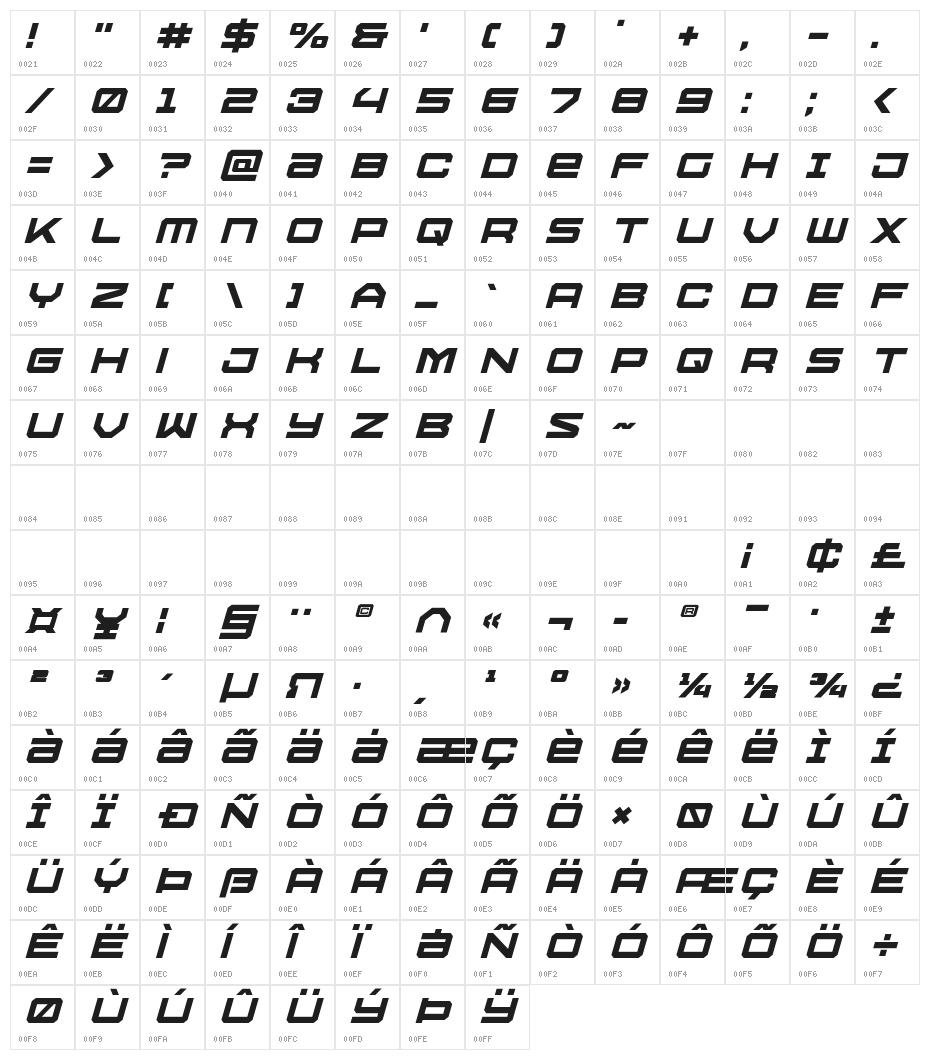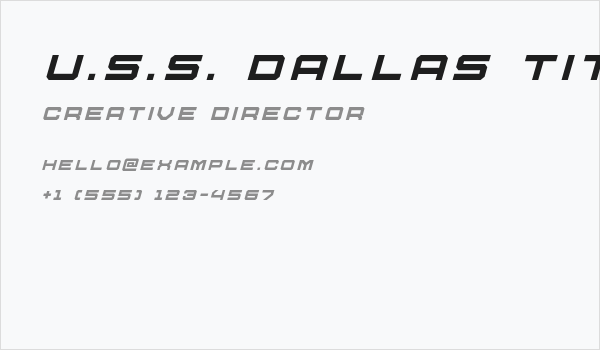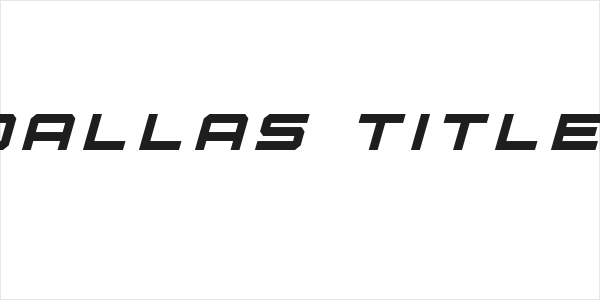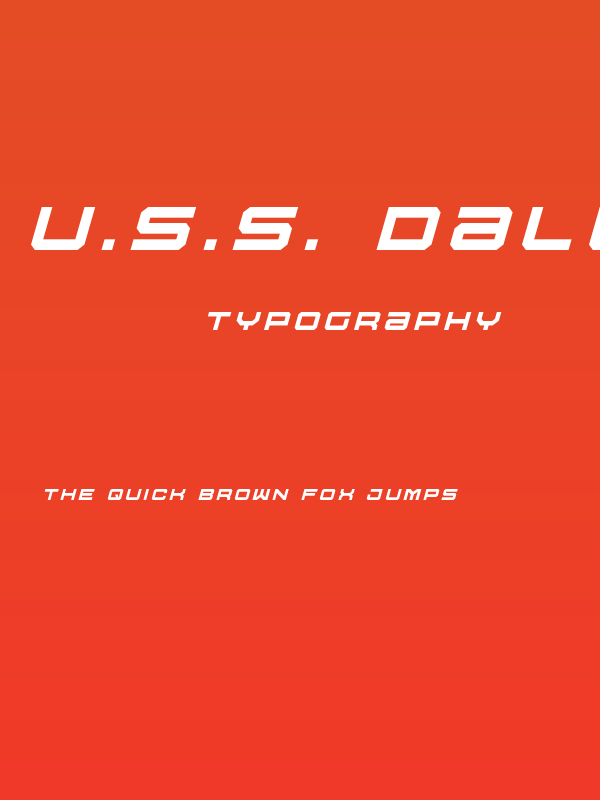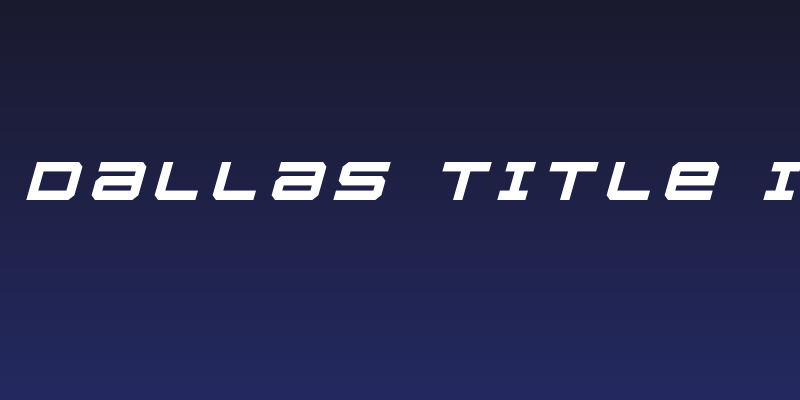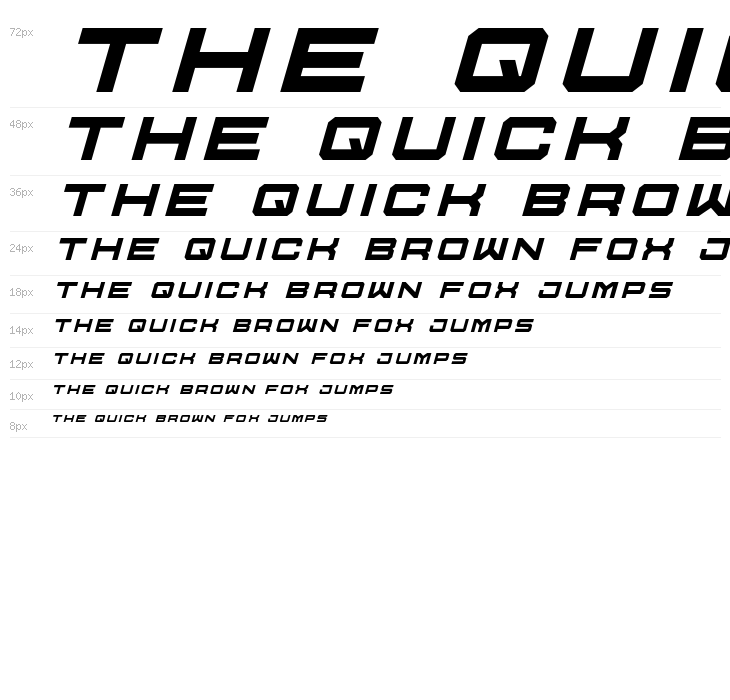
U.S.S. Dallas Title Italic Font
U.S.S. Dallas Title Italic Description
This font features a bold, italicized style with a futuristic and angular design. The characters are slightly slanted, giving a sense of motion and speed. The uppercase and lowercase letters maintain a consistent geometric form, with sharp edges and a uniform stroke width. The numerals and special characters follow the same design principles, ensuring a cohesive look across all glyphs. This font is ideal for projects that require a modern and dynamic appearance, such as technology branding, sports team logos, or video game titles.
Use CaseLogos, Headlines
Proposed ProjectsIdeal for technology branding, sports team logos, and video game titles.